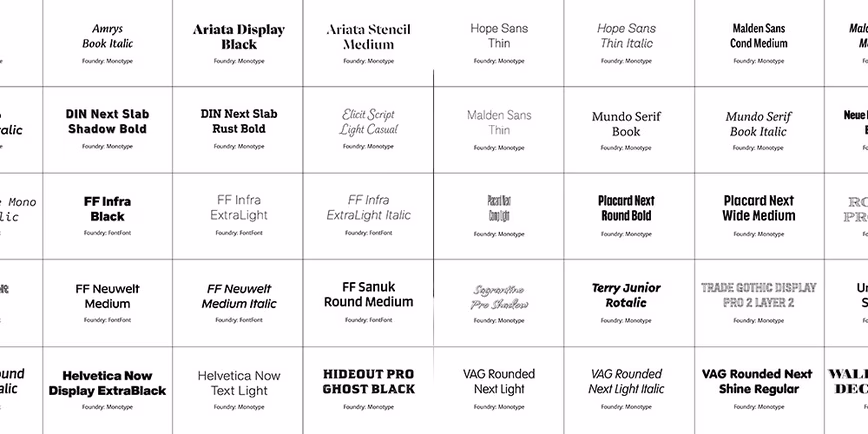
Helvetica. Times New Roman. Arial. They’re the font equivalents of the trusty security blanket. You know them. You’ve used them forever. And they’re as flashy as your grandma going to the grocery store for kale.
Even if your design experience doesn’t extend beyond party announcement flyers at work, you’ve likely exhausted the reservoir of ancient typefaces found in all the big art, design and document software.
This package includes 50 new MyFonts fonts handcrafted by the experts at Monotype, one of the web’s biggest typeface makers. From simple and elegant to ornate and showy, this wide-ranging package of serif, sans serif, script and display fonts can help freshen up virtually any project with just the right typeface to hit your particular mood or character.